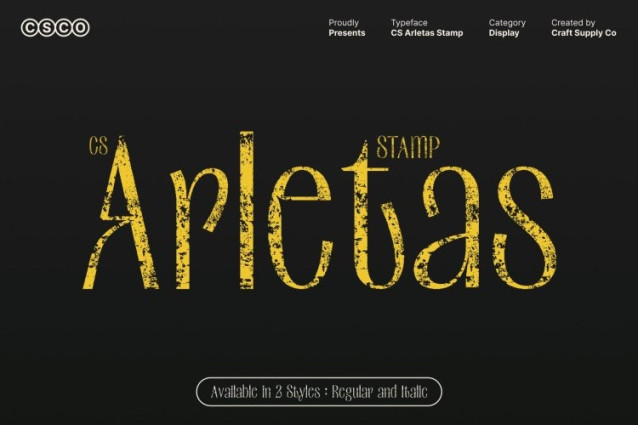
CS Arletas Stamp Font
CS Arletas Stamp Font This is a modern sans-serif font featuring a condensed, space-efficient design with clean and elegant proportions. Its narrow construction allows designers to maximize layout space while maintaining strong readability and visual balance. The sleek structure delivers a professional and contemporary impression, ideal for headlines, titles, and branding that require clarity with style.
Minimalist Design with Strong Impact
Built with sharp lines and smooth curves, this font offers a minimalist aesthetic that feels confident and precise. Its geometric construction gives the font a modern personality, while the condensed form creates a bold vertical rhythm that enhances visual impact without overwhelming the composition.
Vintage Stamp Texture with Artistic Character
The stamped texture introduces subtle distress, rough edges, and organic imperfections that soften the modern structure with a vintage touch. This textured finish adds depth and authenticity, giving the font an artistic, slightly worn character that recalls traditional print techniques and handcrafted typography.
Ideal for Modern, Editorial, and Branding Projects
This font is perfectly suited for professional branding, editorial layouts, posters, packaging, and marketing materials that need a balance of modern sophistication and expressive texture. By combining condensed modern design with a vintage stamp effect, this font delivers a distinctive visual voice clean, stylish, and rich with character.